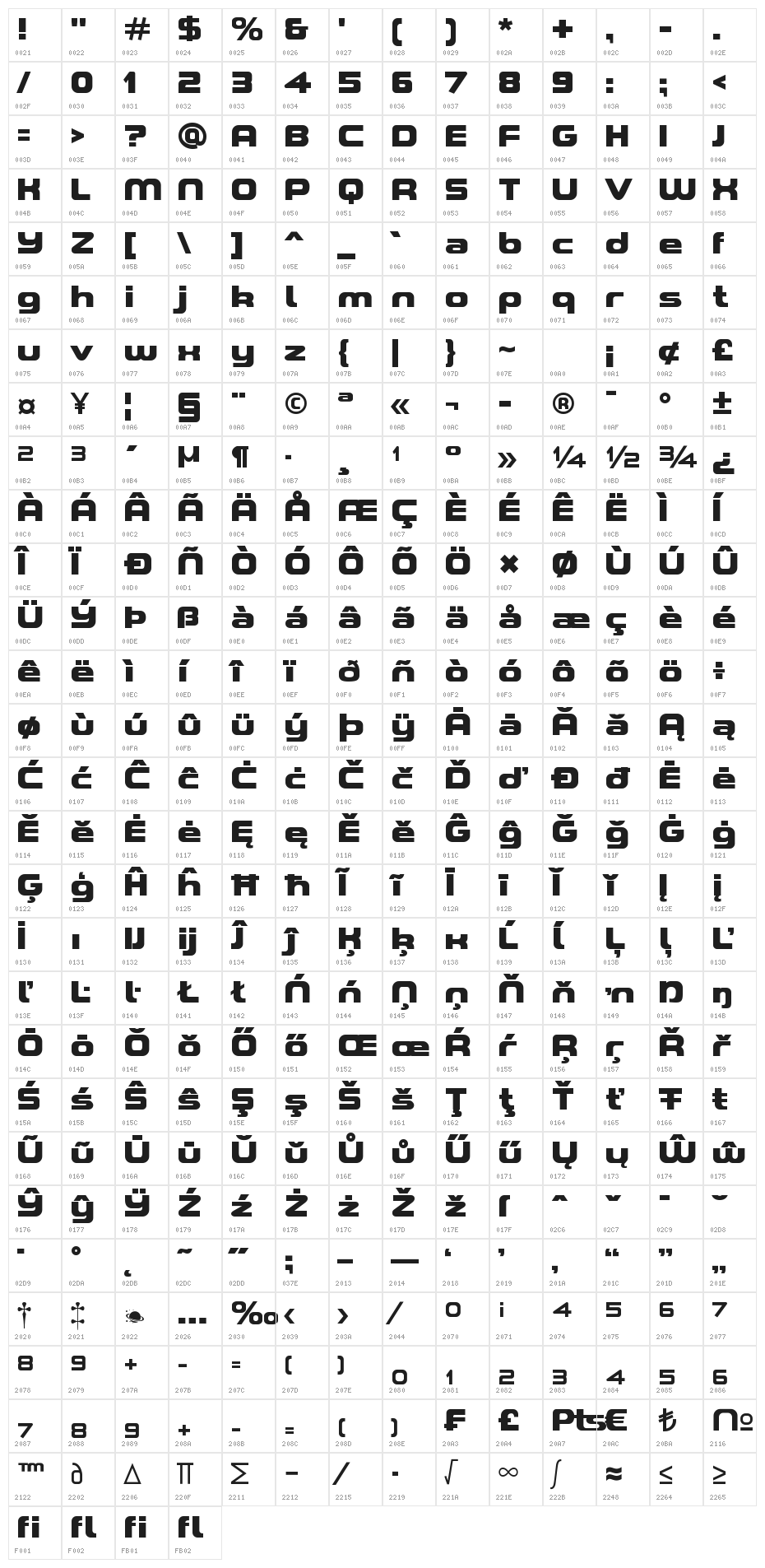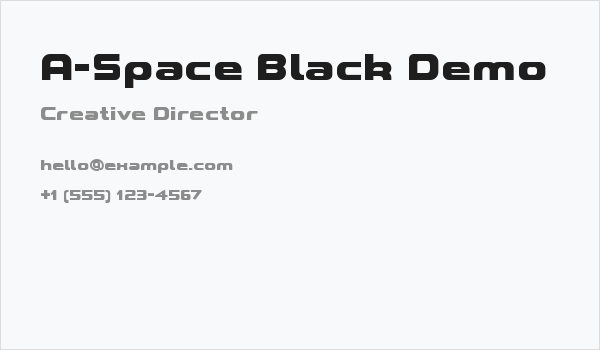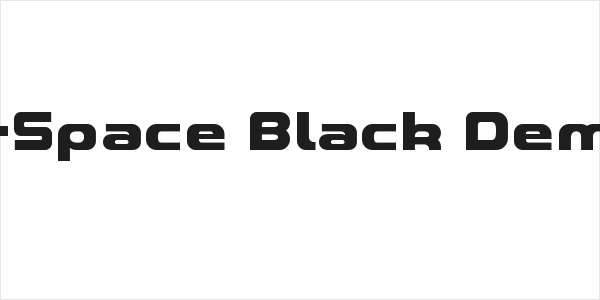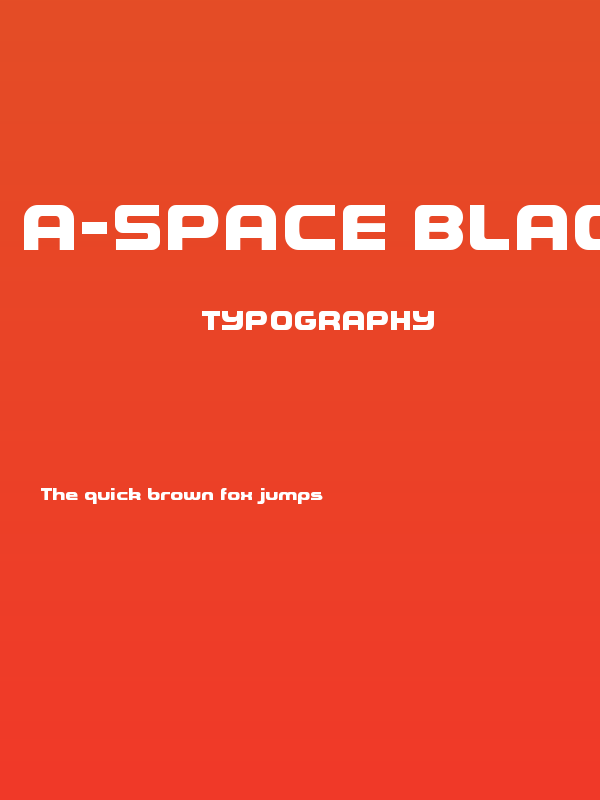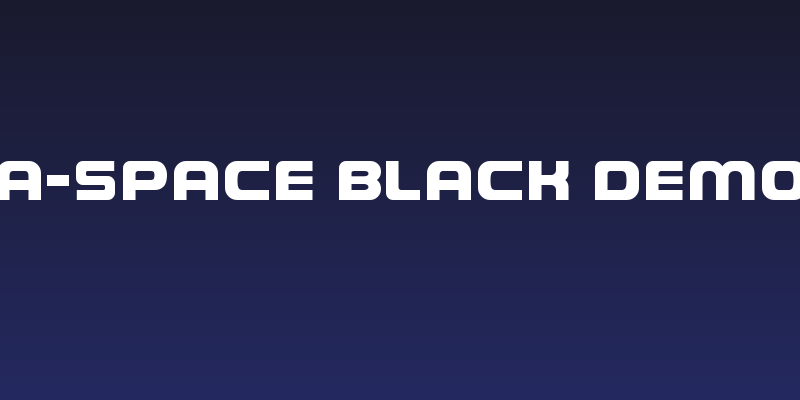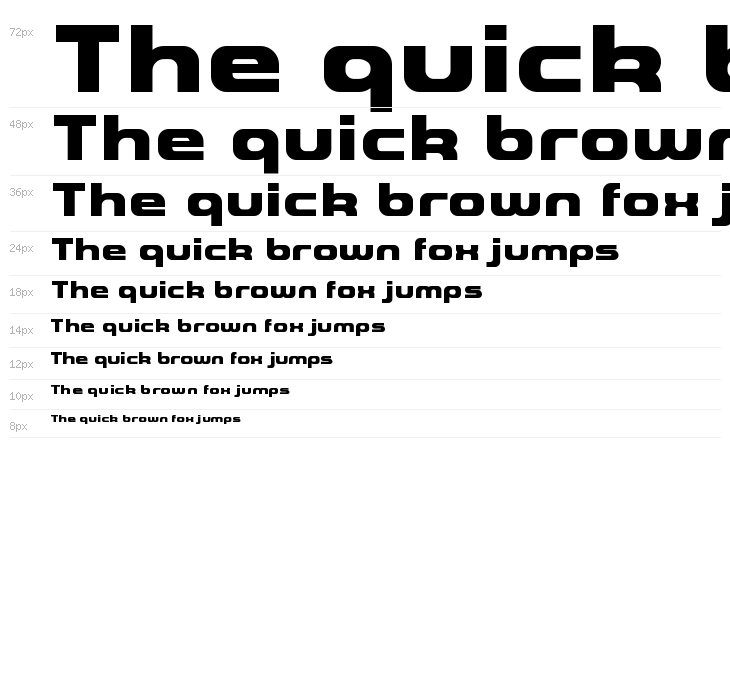
A-Space Black Demo Font
A-Space Black Demo Description
This font features a bold and modern design with a futuristic aesthetic. The characters are uniformly thick, providing a strong and impactful presence. The rounded edges soften the overall look, making it approachable while maintaining a sense of strength. The uppercase and lowercase letters are consistent in style, with a geometric influence that adds to the contemporary feel. The numerals and special characters follow the same design principles, ensuring a cohesive appearance across all elements. This font is ideal for projects that require a bold statement and a modern touch.